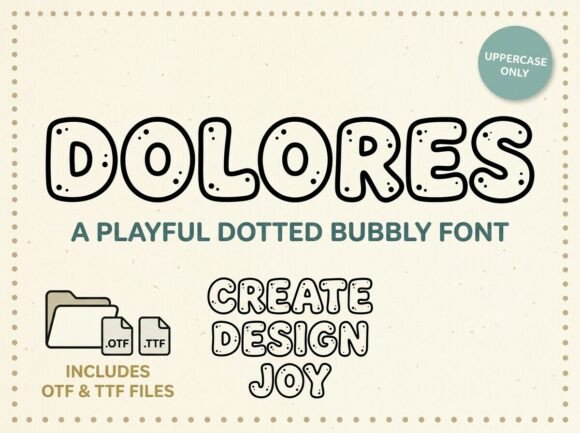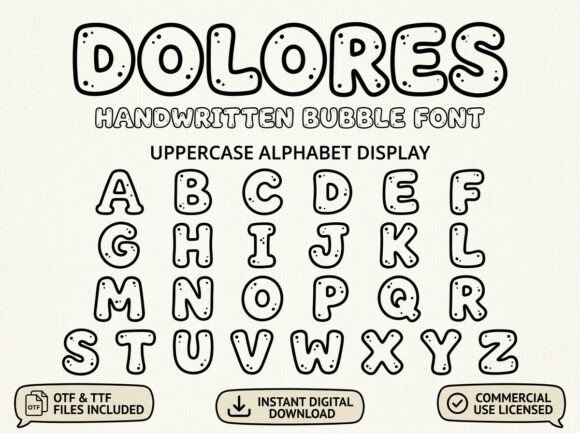
Bring a Touch of Whimsy to Your Designs with Dolores Font
Are you looking for a font that can add a dash of fun and playfulness to your creative projects? Look no further than Dolores, a charming handwritten bubble font that’s sure to delight. This all-caps display typeface is perfect for designers and crafters who want to bring a touch of bouncy, lighthearted fun to their work.
The Characteristics of Dolores Font
Dolores font features soft, rounded letterforms that are characterized by their friendly, puffy silhouette and organic “speckled” texture. The font’s design is reminiscent of hand-drawn doodles and classic street art bubble letters, giving it a unique and eye-catching charm. The letters are bold and chunky, with a subtle texture that gives them a hand-crafted feel.
The Perfect Font for Playful Projects
Dolores font is the premier choice for a wide range of creative projects, including children’s book titles, playful branding for candy or toy shops, high-energy school event posters, and vibrant social media headers. The font’s playful and energetic vibe makes it perfect for designs that need to appeal to a younger audience or convey a sense of fun and excitement.
Use Dolores Font to Make Every Word Feel Like It’s Floating
One of the standout features of Dolores font is its ability to make every word feel like it’s floating. The font’s lighthearted and airy design gives it a sense of weightlessness, making it perfect for designs that need to convey a sense of joy and playfulness. Whether you’re designing a poster, a social media header, or a children’s book title, Dolores font is sure to add a touch of magic to your work.
Design Ideas for Dolores Font
So, how can you use Dolores font in your designs? Here are a few ideas to get you started:
- Children’s book titles: Dolores font is perfect for kids’ book titles, with its playful and energetic vibe that’s sure to appeal to young readers.
- Playful branding: Use Dolores font to create fun and playful branding for candy or toy shops, or any other business that wants to convey a sense of fun and excitement.
- School event posters: Dolores font is a great choice for high-energy school event posters, with its bold and chunky design that’s sure to grab attention.
- Social media headers: Add a touch of whimsy to your social media headers with Dolores font, which is perfect for creating eye-catching and engaging graphics.
Tips for Using Dolores Font
Here are a few tips for using Dolores font in your designs:
- Use it sparingly: Dolores font is a bold and attention-grabbing font, so use it sparingly to avoid overwhelming your design.
- Pair it with a simple font: Pair Dolores font with a simple font to create contrast and add visual interest to your design.
- Experiment with colors: Dolores font looks great in bright, bold colors, so don’t be afraid to experiment and find the perfect hue for your design.
Dolores font is a charming handwritten bubble font that’s perfect for designers and crafters who want to add a touch of fun and playfulness to their creative projects. With its soft, rounded letterforms and organic “speckled” texture, Dolores font is sure to delight audiences of all ages. Whether you’re designing a children’s book title, a playful brand logo, or a high-energy school event poster, Dolores font is the premier choice for adding a touch of whimsy and fun to your work.